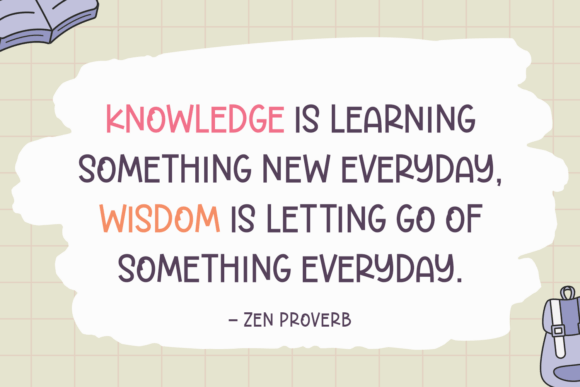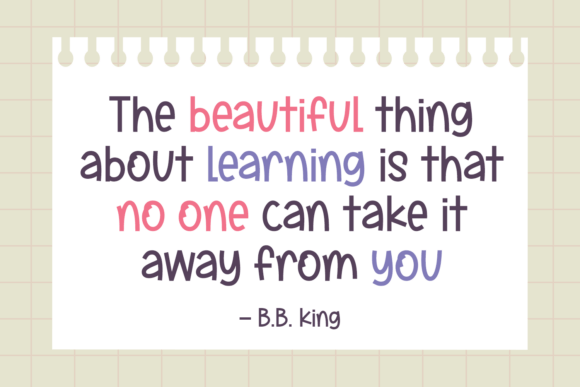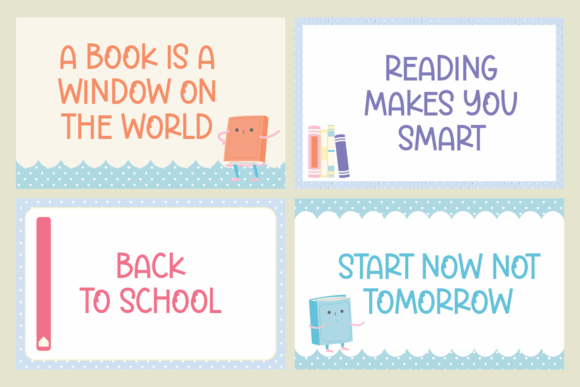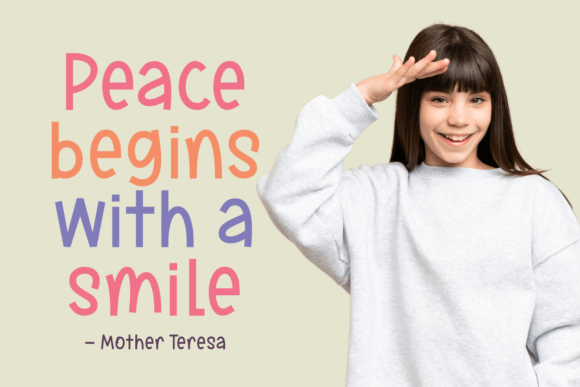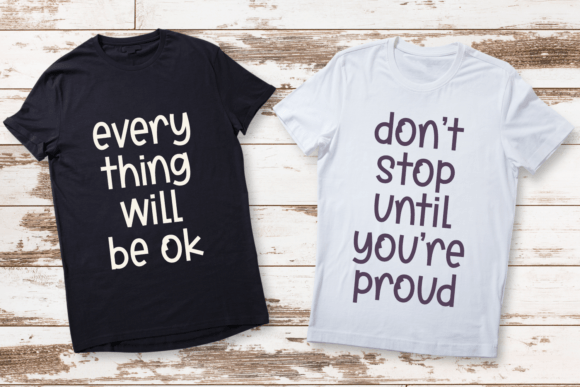
Embracing the Charm of Handwritten Style
There’s something magical about sitting down with a blank page, a pen, and an idea brewing in your mind. The sound of the pen gliding across the paper, the feel of the ink flowing onto the page – it’s a moment of pure creativity. As designers, we often seek to capture this essence in our work, to convey the personality and warmth that handwritten notes can bring. That’s where the Change One Thing Font comes in, a casual, handwritten font that embodies the spirit of personal and creative expression.
This font is perfect for designers looking to add a touch of warmth and personality to their projects. With its smooth curves and relaxed strokes, Change One Thing Font is ideal for personal projects, journaling, invitations, and creative designs. By incorporating this font into your work, you can add a unique and relatable touch that sets your designs apart.
Change One Thing Font Key Features
- Font Family: Change One Thing is a sans-serif typeface designed by Christian Schwartz.
- Unique Characteristics: Change One Thing features a unique blend of geometric and humanistic elements, resulting in a friendly and approachable appearance.
Change One Thing Font Review
As a designer, I’m always on the lookout for unique and versatile fonts to enhance my projects. The Change One Thing Font is a promising addition to any design library.
- Customization options: Change One Thing Font offers a range of weights and styles, allowing designers to experiment with different looks and feels.
- Legibility: The font is highly legible, making it suitable for body text and headlines alike.
- Neutral aesthetic: The font’s neutral tone and clean lines ensure it won’t overpower your design, allowing you to focus on other creative elements.
- Limited expressive range: While the font is versatile, it may not be the best choice for projects requiring a bold or dramatic statement.
- May not stand out: In a crowded design landscape, the Change One Thing Font might blend in with other neutral fonts, requiring additional styling to make it pop.
Overall, I find the Change One Thing Font to be a solid addition to any design library. While it may not revolutionize typography, its versatility and legibility make it a reliable choice for a wide range of projects.